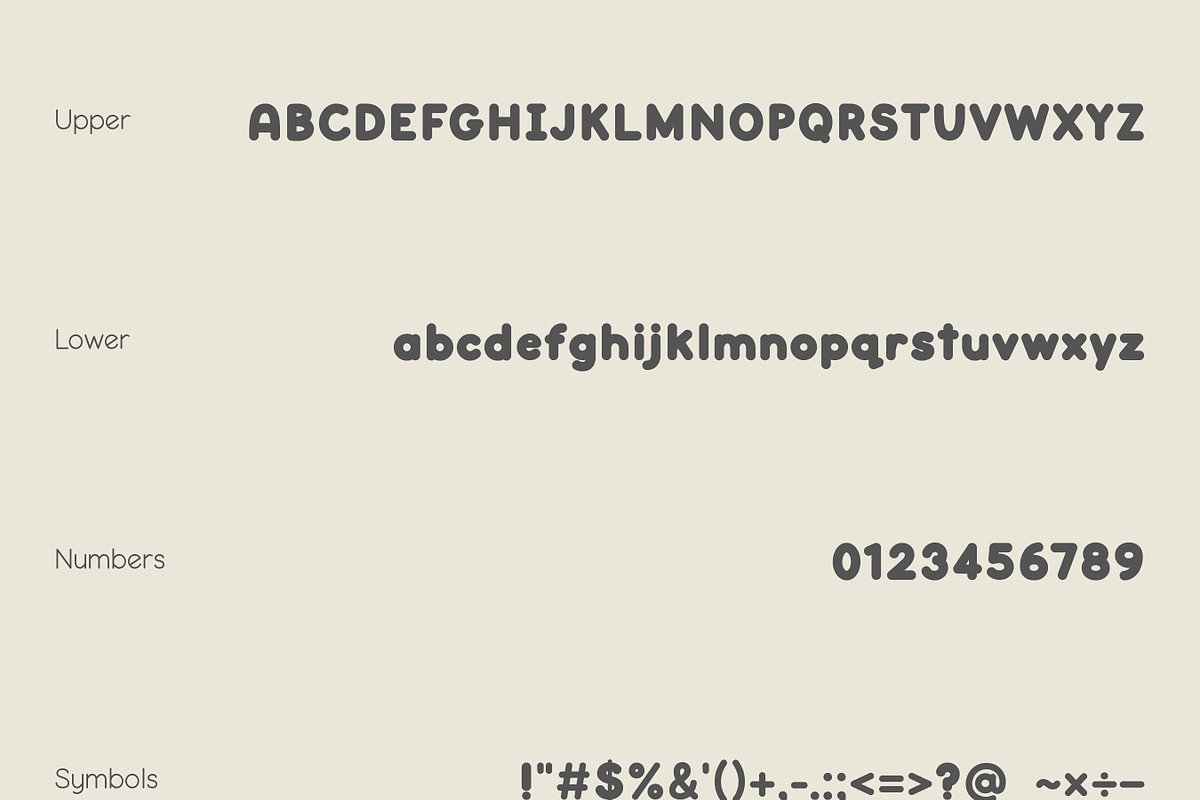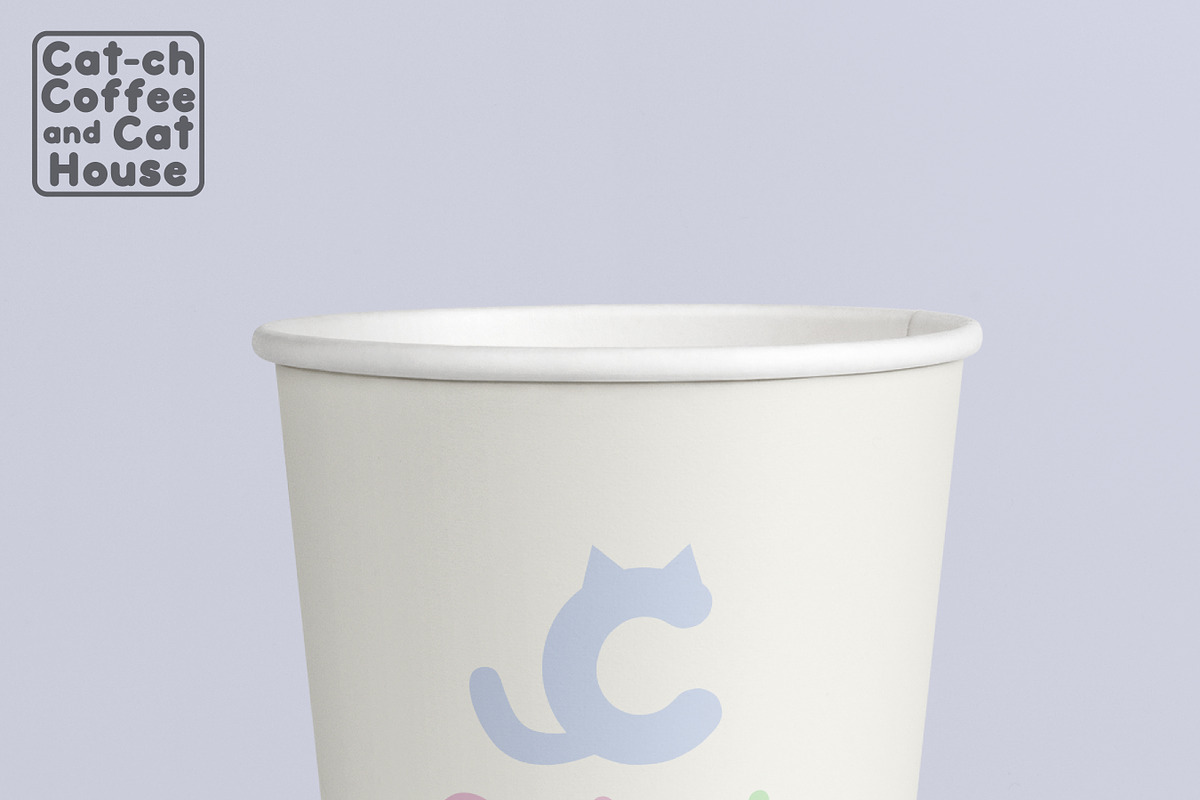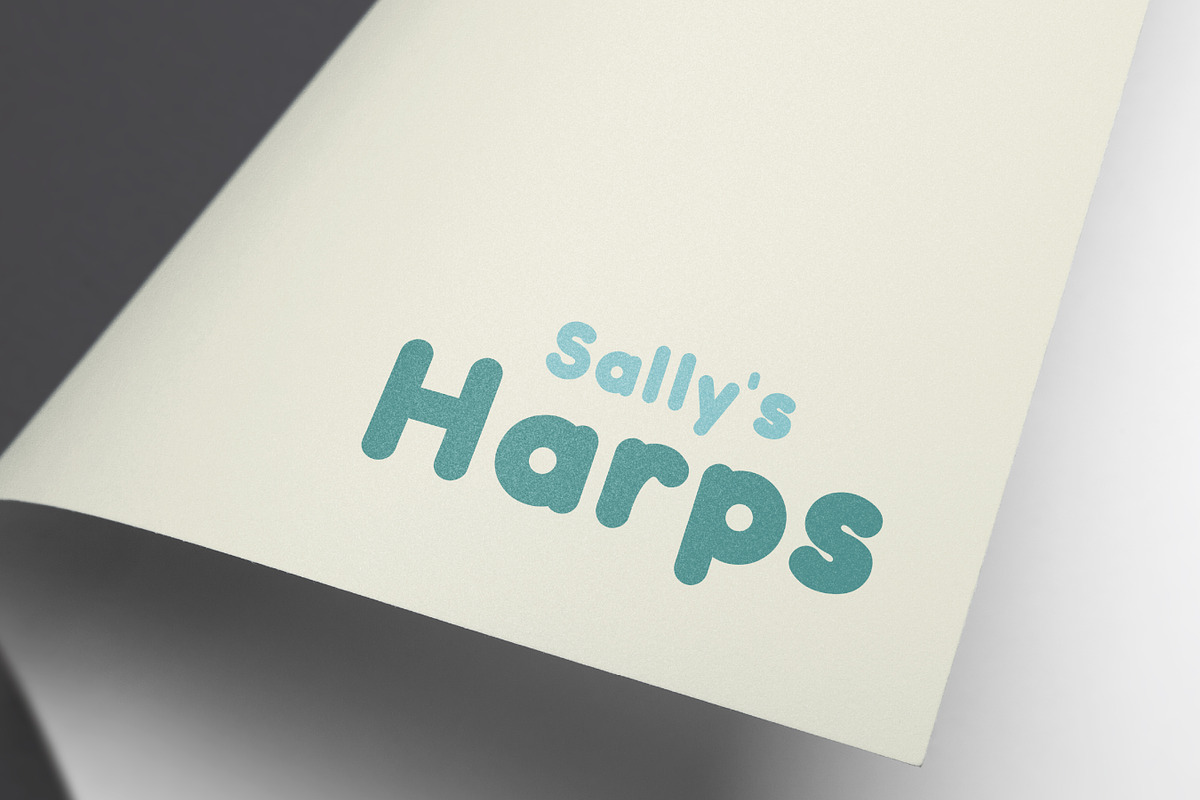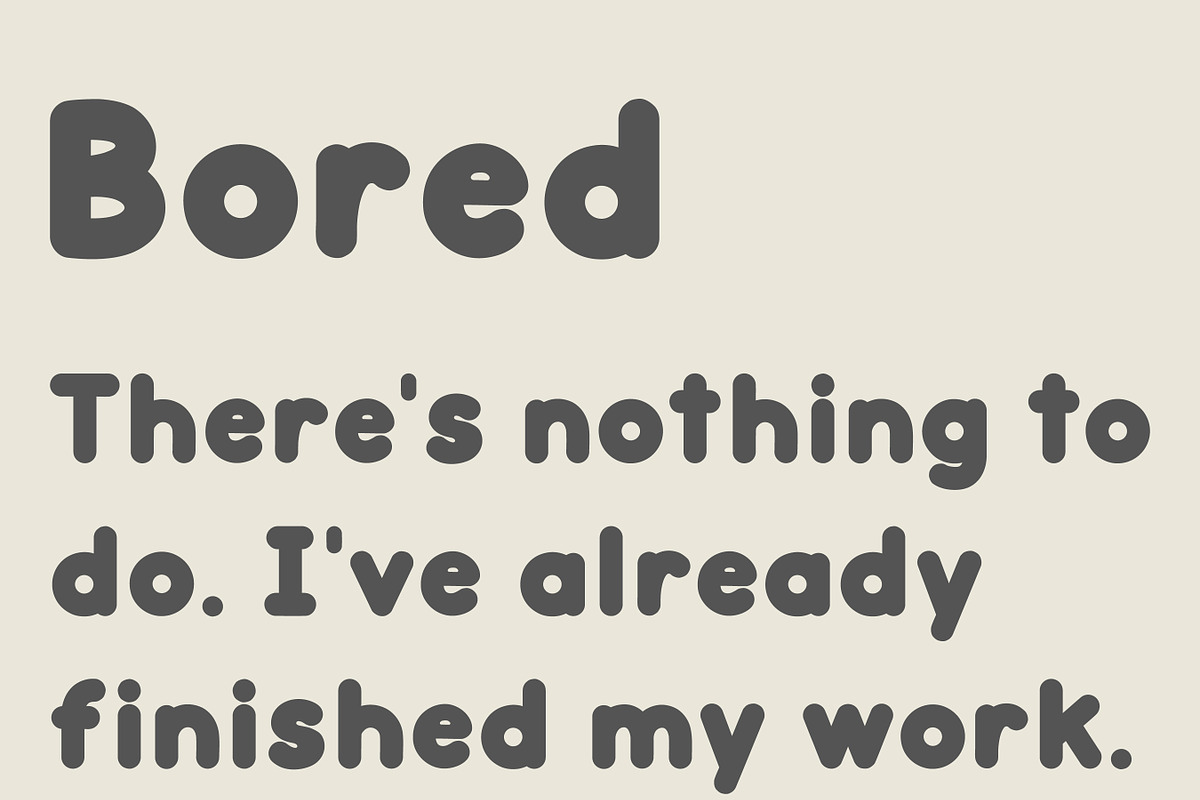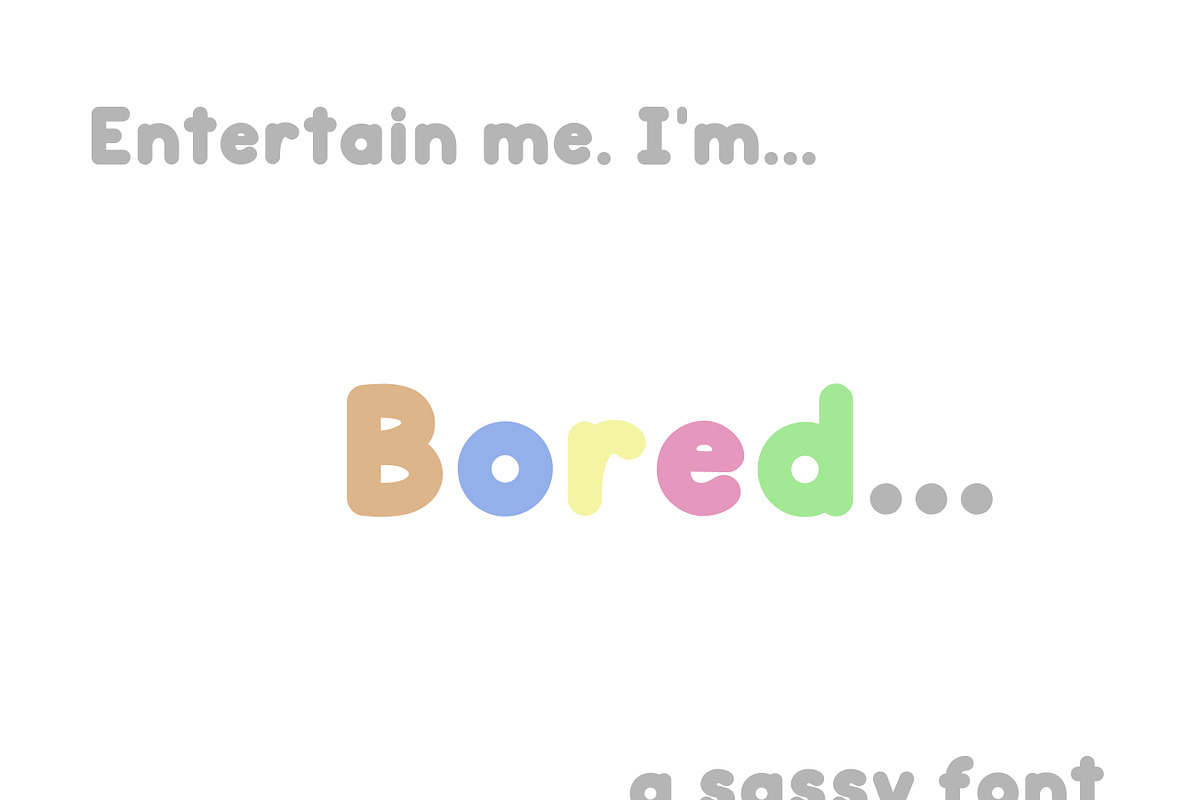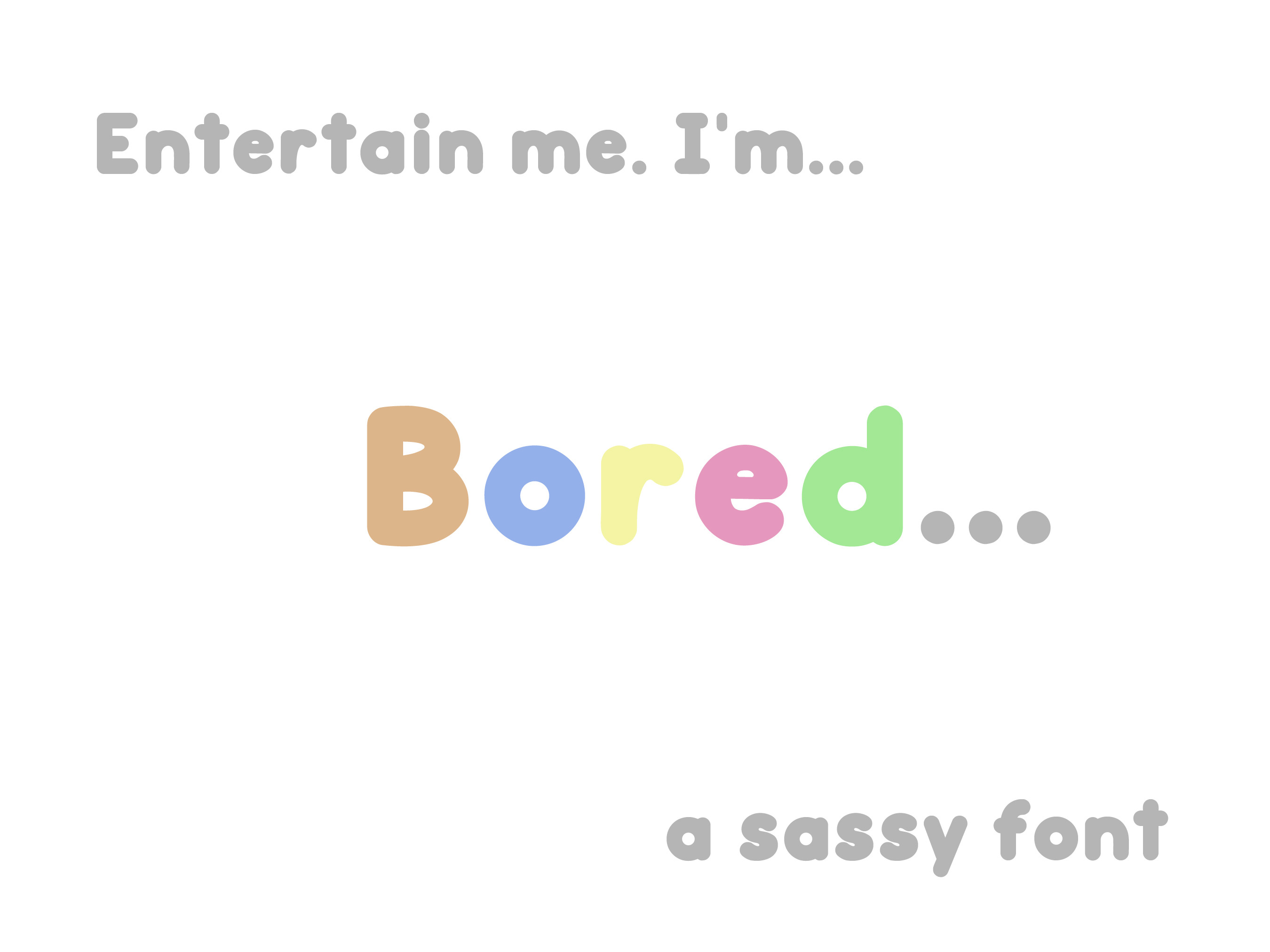
Bored Font
Bored is a cute font that is perfect for bold and personality-driven projects. It is a chunky and big bubble display font that can be used for many purposes, professional, and home projects. Cute Bubble Font!